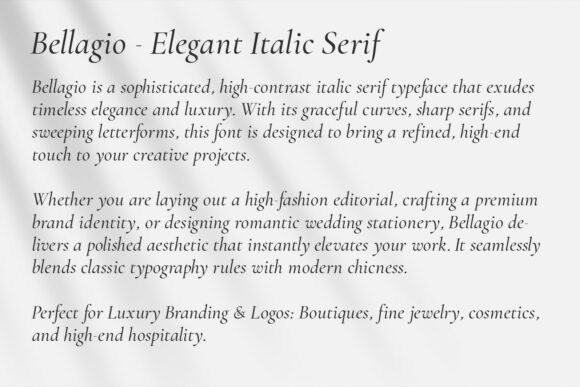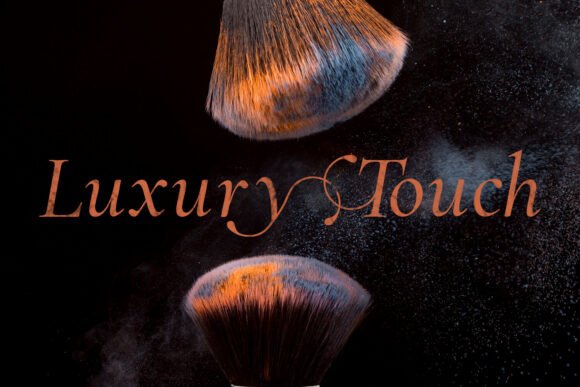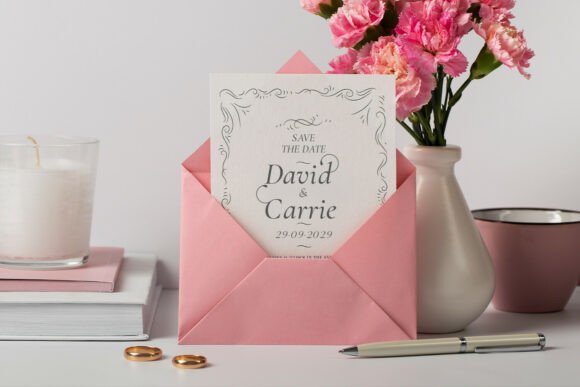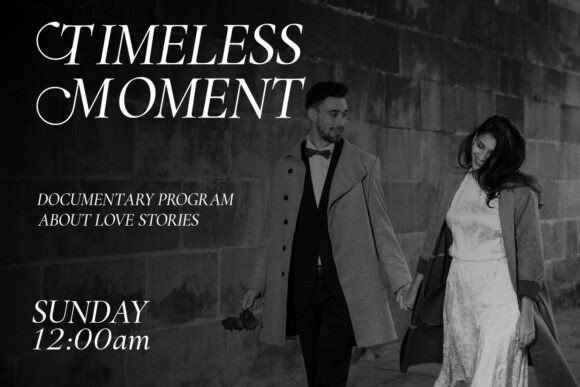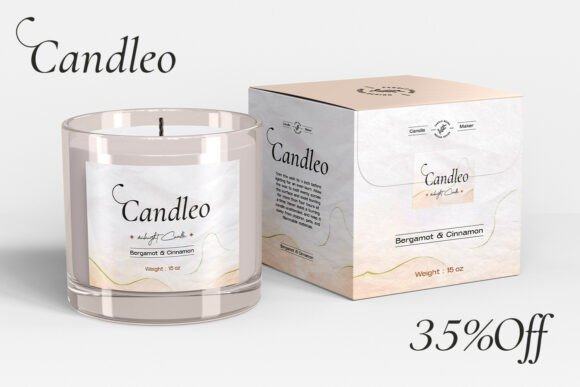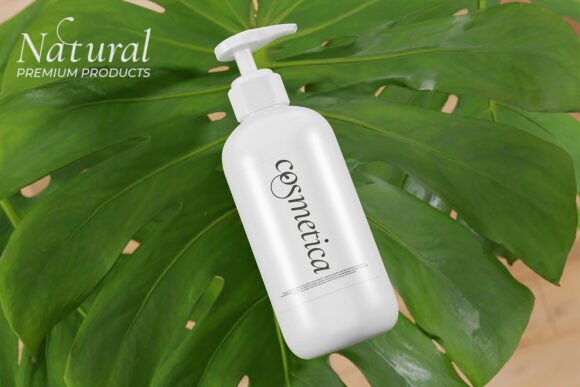
Capture Timeless Romance with Bellagio Font
In the world of typography, few fonts evoke the essence of romance and elegance as effortlessly as the Bellagio font. This exquisite serif typeface is designed to whisper sophistication and luxury in every letter, making it the perfect choice for designers and crafters looking to add a touch of high-end flair to their projects.
The Essence of Bellagio Font
The Bellagio font is characterized by its stunning, elongated flourishes and delicate contrast between thick and thin strokes. This thoughtful design creates a sense of movement and fluidity, imbuing the typeface with a sense of drama and whimsy. The result is a font that exudes a “whispering romance” aesthetic, perfect for capturing the hearts of those who appreciate the finer things in life.
Perfect for Luxury Branding and Design
The Bellagio font is particularly well-suited for luxury branding, high-end jewelry logos, and sophisticated wedding invitations. Its elegant curves and refined features make it an ideal choice for designers looking to create a sense of opulence and refinement in their work. Whether you’re designing a logo, brochure, or wedding invitation, the Bellagio font is sure to make a lasting impression.
A Centerpiece in Any Design
One of the standout features of the Bellagio font is its ability to act as a centerpiece in any design. Its elegant curves and sophisticated ligatures are so striking that they require little ornamentation to make a grand statement. This makes it the perfect choice for designers who want to create a clean, elegant look that allows the typography to take center stage.
Pairing with White Space and Earthy Tones
To truly showcase the beauty of the Bellagio font, it’s essential to pair it with ample white space and a muted, earthy color palette. This allows the font’s graceful curves and sophisticated ligatures to tell a story of luxury and love. The result is a design that exudes refinement, elegance, and a deep sense of romance.
PUA Encoding for Easy Use
Design and Crafting Inspiration
For designers and crafters looking for inspiration, the Bellagio font offers endless possibilities. Here are a few ideas to get you started:
- Wedding invitations and stationery: The Bellagio font is perfect for creating beautiful, elegant wedding invitations that set the tone for a sophisticated and romantic wedding.
- Luxury branding: Use the Bellagio font to create high-end logos and branding materials that exude refinement and elegance.
- Packaging design: The Bellagio font is ideal for packaging design, particularly for luxury goods such as jewelry, perfumes, and high-end cosmetics.
- Typography art: Use the Bellagio font to create beautiful typography art pieces that showcase the font’s elegant curves and sophisticated ligatures.
In conclusion, the Bellagio font is a timeless and elegant serif typeface that is perfect for designers and crafters looking to add a touch of luxury and romance to their projects. Its stunning, elongated flourishes and delicate contrast between thick and thin strokes make it a standout choice for luxury branding, high-end jewelry logos, and sophisticated wedding invitations. With its PUA encoding and ease of use, the Bellagio font is a versatile and beautiful addition to any design workflow.